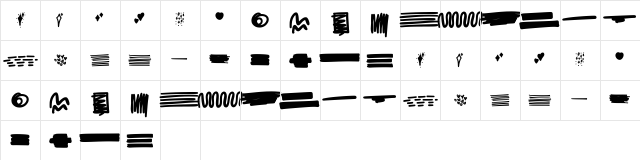
Uncle House Extra Regular
| Designer | Muh Aswar by Azetype Studio |
Design Context for Uncle House Extra Typeface
Uncle House Extra is a composed and adaptable typeface that performs quietly and consistently across a wide range of design contexts.